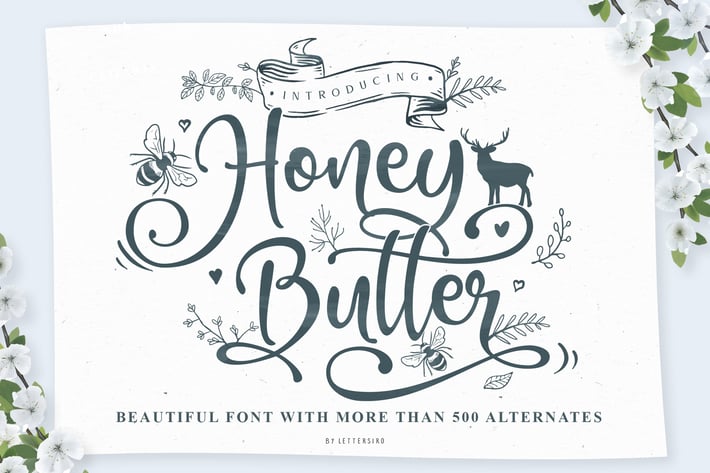
Honey Butter Beautiful Font
This is our newest product called Honey Butter .
Honey Butter comes more than 500 alternate character . Honey Butter is really great font for logo, blog/web headline, clothing, invitation, poster, cafe/resto sign, and many others.
Honey Butter Script Clean with over 500 alternate (OTF/TTF) - Alternate contains stylistic, swash, stylistic set ss01 - ss13 , and ligatures
Multilingual support - spread your message globally AÀÁÂÃÄÅCÇDÐEÈÉÊËIÌÍÎÏNÑOØÒÓÔÕÖUÙÜÚÛWYÝŸÆßÞþ